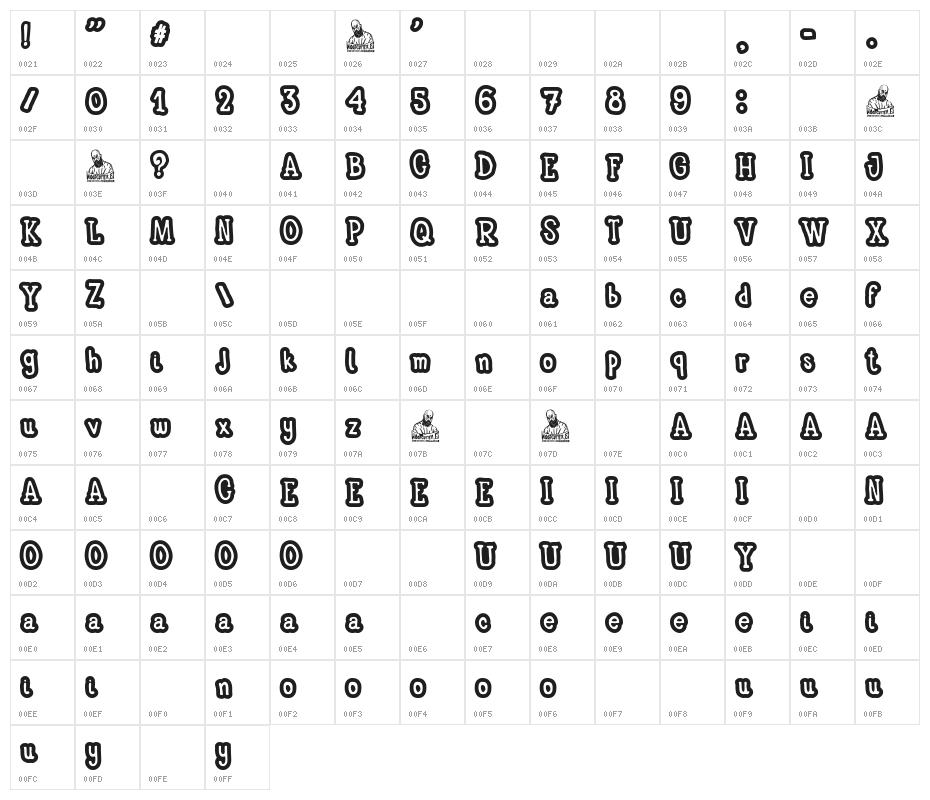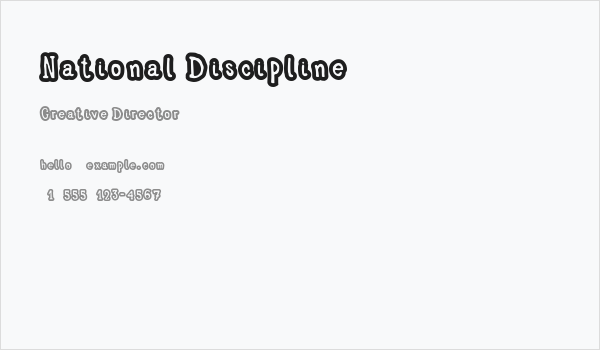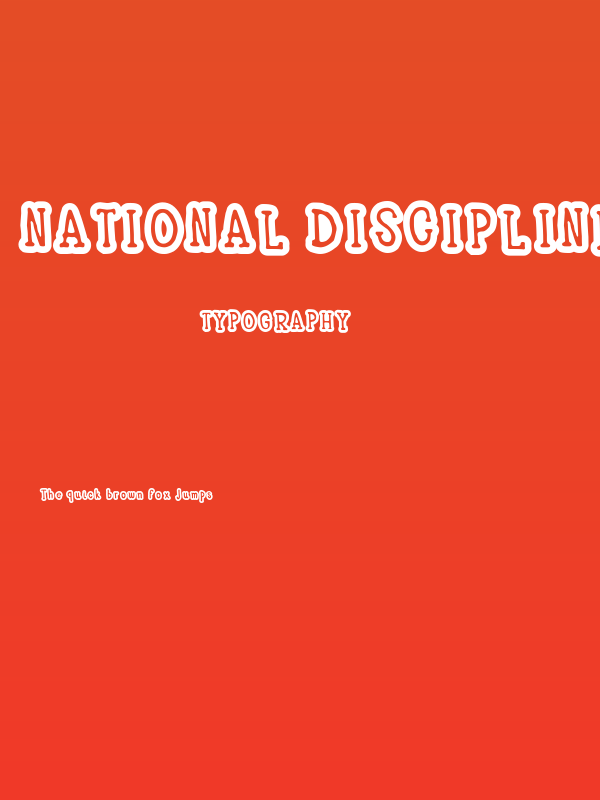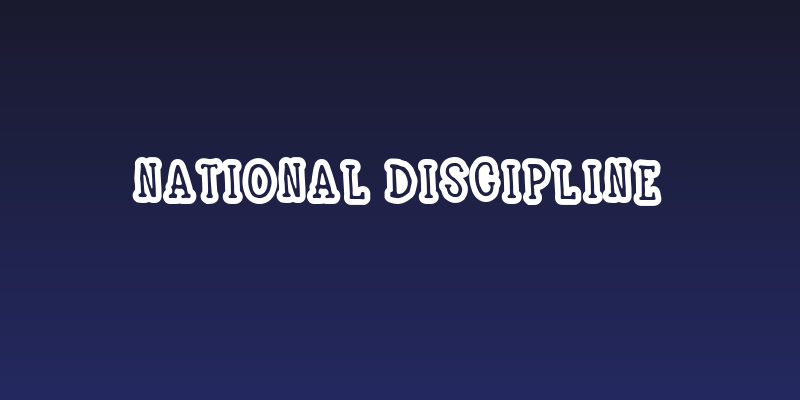
National Discipline Font
National Discipline Description
A playful, bold display font with thick outlines and rounded, irregular letterforms, giving it a cartoonish and hand-drawn appearance. The characters are highly legible and have a whimsical, informal style.
Overall StylePlayful, Decorative, Hand-drawn
Use CaseHeadlines, Posters, Logos, ChildrenÒ€ℒs materials
Proposed ProjectsChildrenÒ€ℒs books, posters, comic titles, party invitations, playful branding, signage.